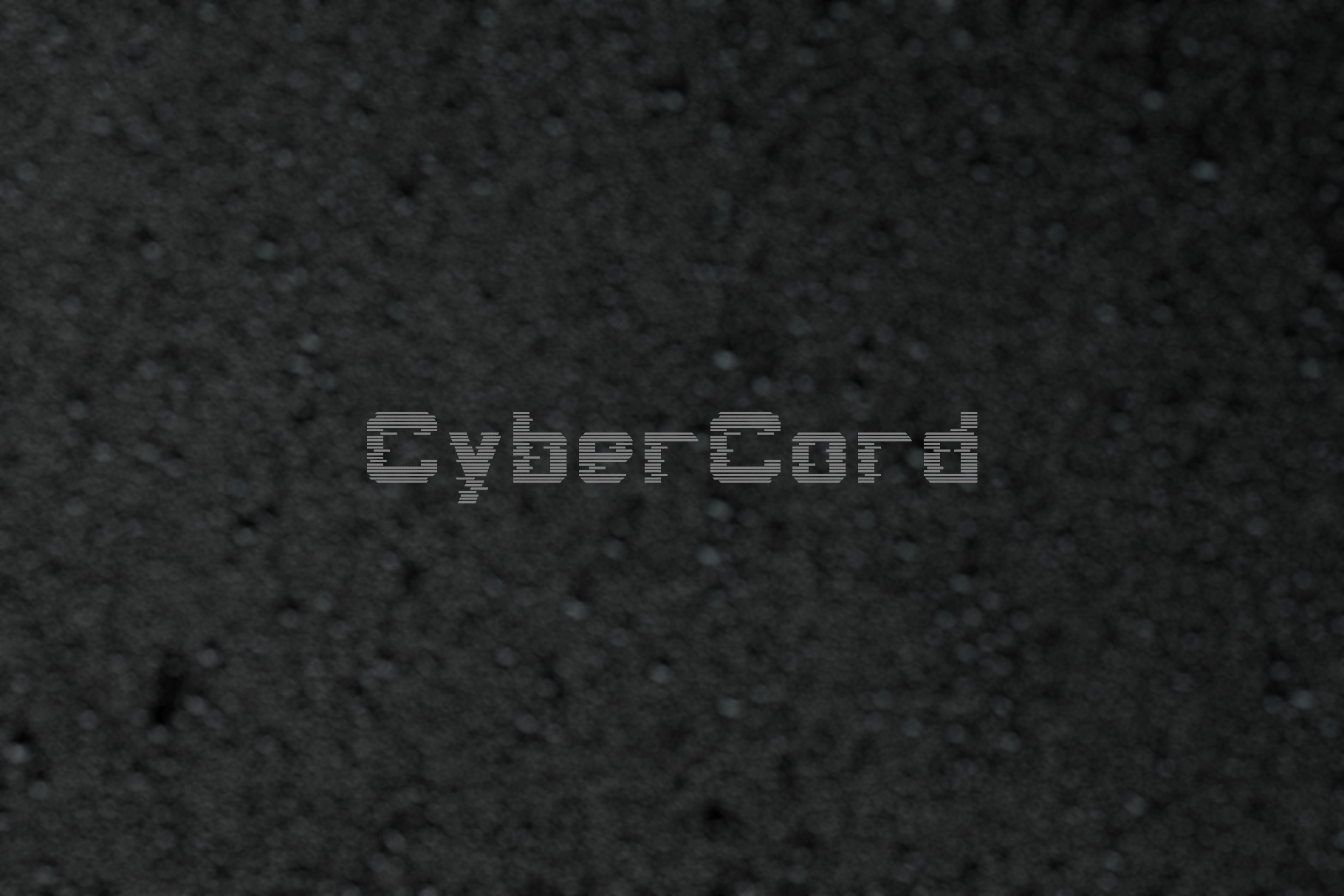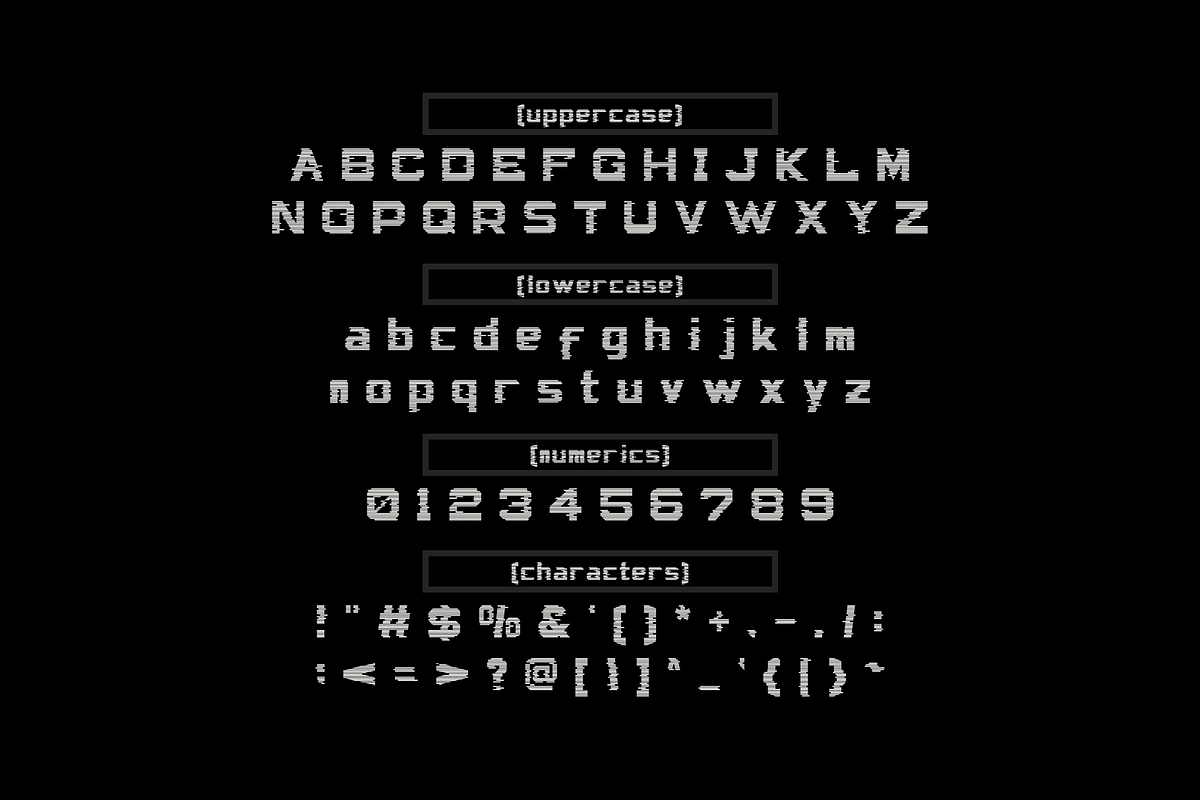
CyberCord font
CyberCord font typically refers to a type of font that aligns with a line structure. In this context, the characters are designed to fit within a line system, where each character occupies a defined set of rows and columns. This type of font is often used for creating a clean and organized appearance, especially in contexts where a systematic and structured layout is desired.
These fonts are commonly used in graphic design, typography, and digital interfaces where a structured and orderly presentation is desired. They can be particularly useful for creating charts, tables, or any visual content that benefits from a consistent grid-based layout.